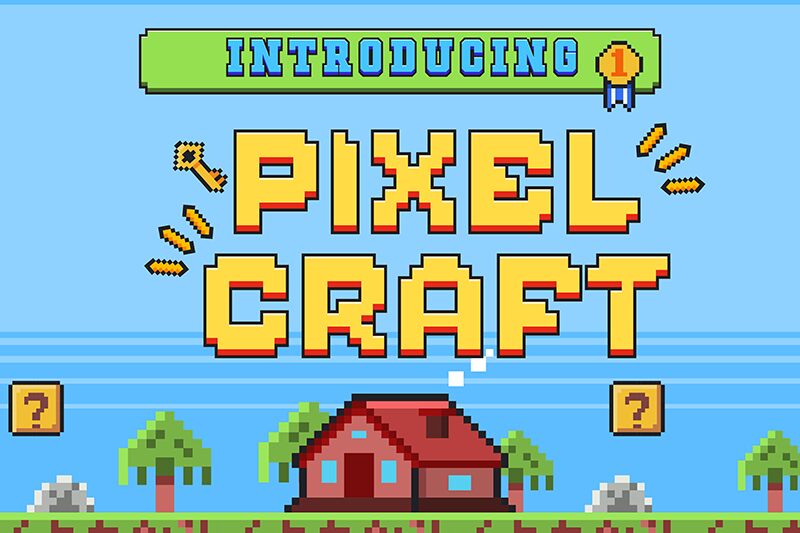
Pixelcraft font by Mocha Frappuccino is a free bitmap/pixel font that plays with shapes and cuts to create something unique. Bold and vibrant, it is inspired by blocky, pixelated graphics with a nod to a nostalgic retro video game aesthetic. It creates an engaging and playful mood that will capture readers’ attention while uplifting them as well.
The font is suitable for gaming-themed designs or digital art projects. Use it to make a statement in branding projects, advertisements, packaging designs, merchandise customization, social media posts, and more.